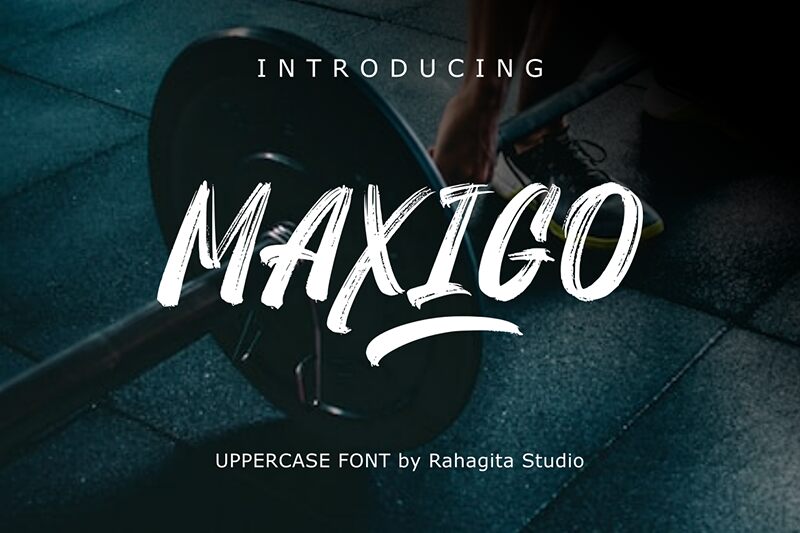
Maxigo font by Rahagita Studio is a free brush font full of raw energy and dynamic shapes. Designed to catch the eye, it mixes a modern urban style with casual yet expressive individual characters. With its contemporary appearance and impactful look, Maxigo is truly a font that stands out and is hard to forget.
Use it for packaging, branding, advertisements, posters, banners, magazines, book covers, headlines, movie titles, games, or sports-related visuals. Try it on digital or printed projects, and always expect your final results to be more attractive.
A bold and dynamic typeface that exudes energy and creativity, Maxigo features expressive brush strokes and commanding uppercase characters. This modern font brings a distinctive feel to your design projects, making it ideal for headings, titles, branding, packaging, flyers, and logos.